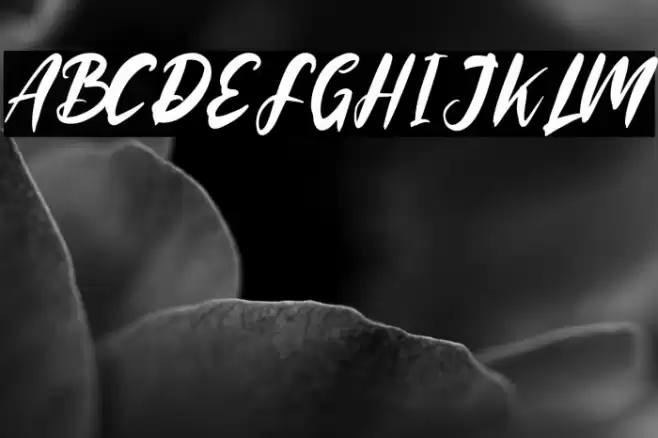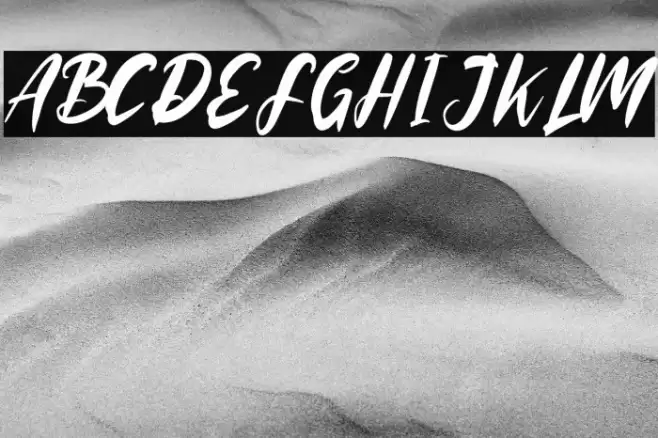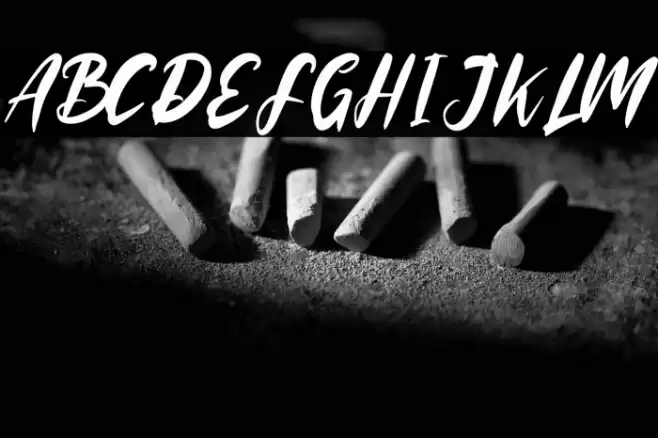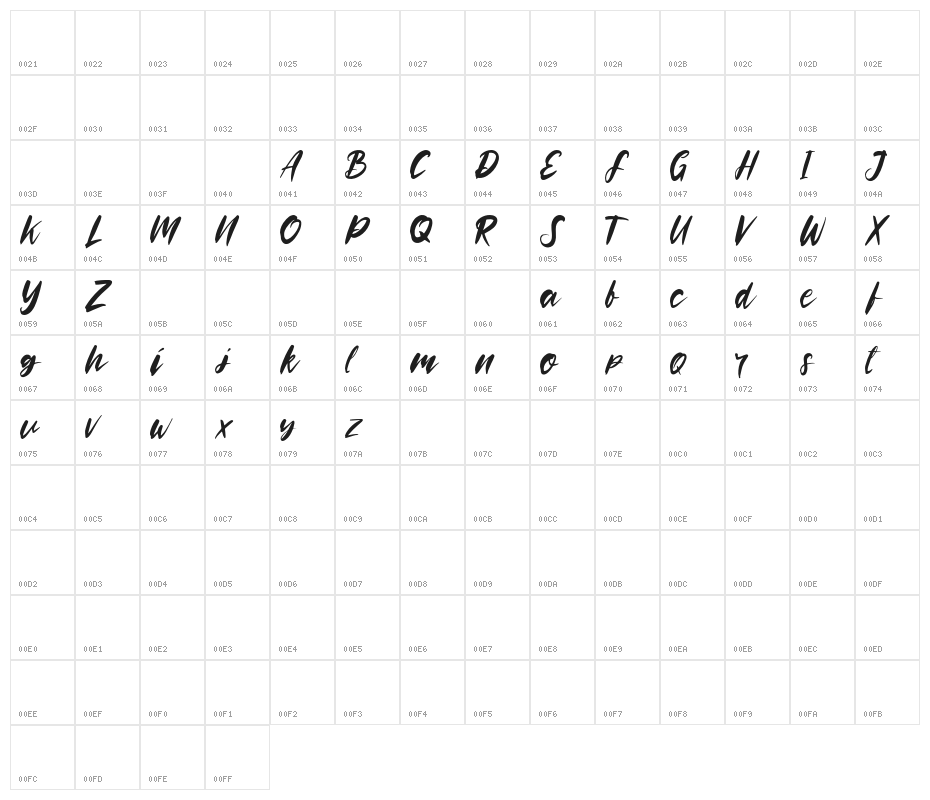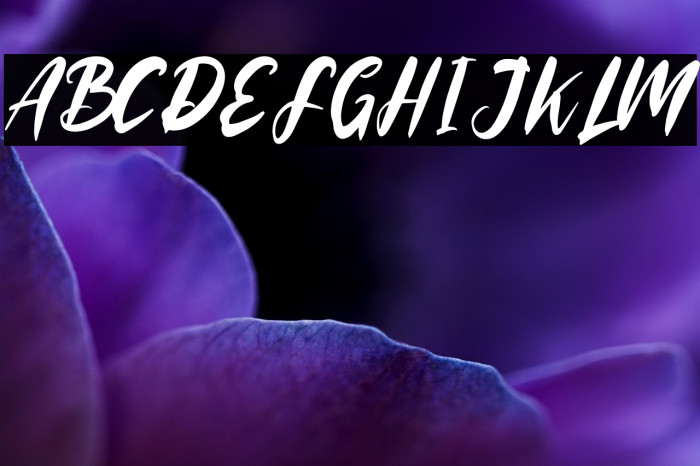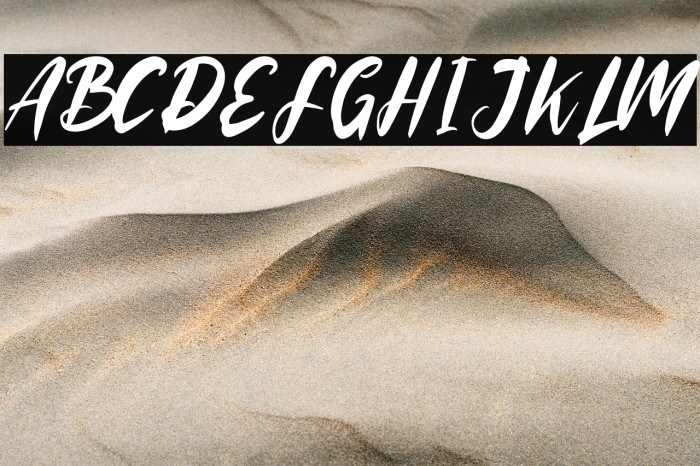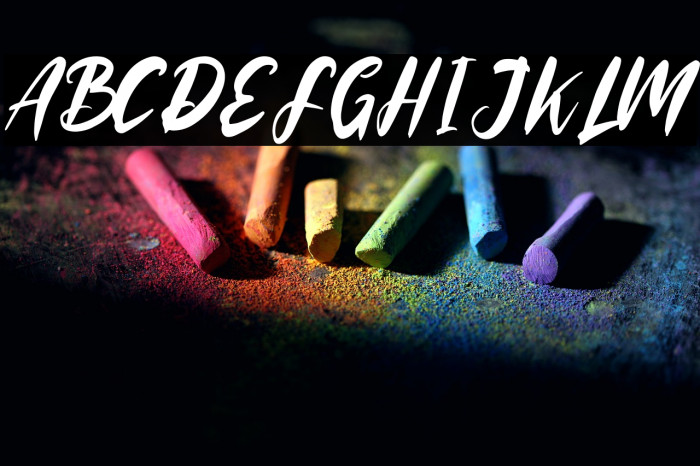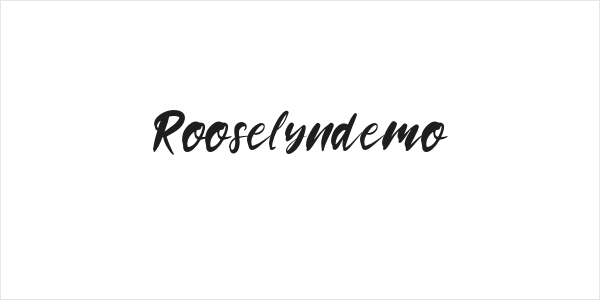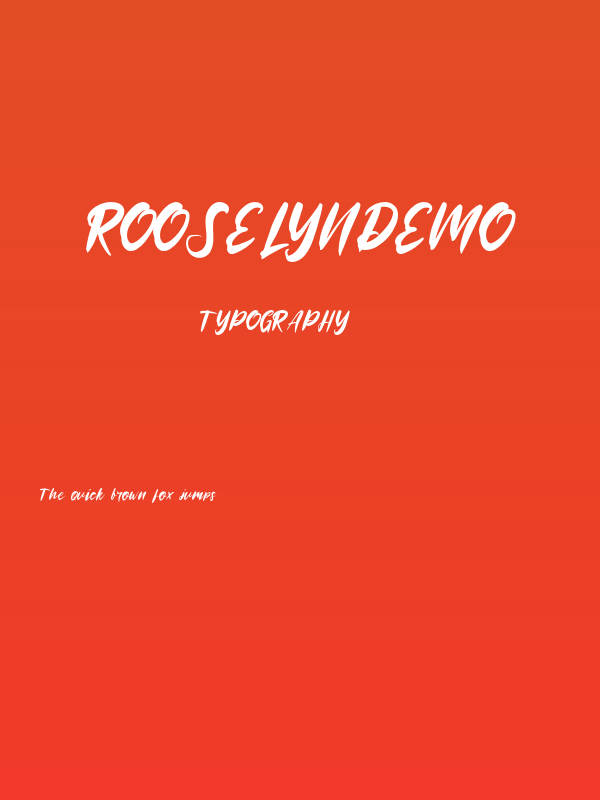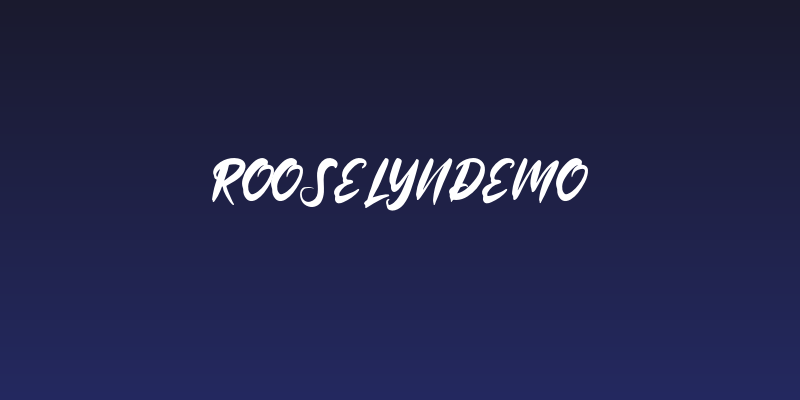
Rooselyndemo Font
Rooselyndemo Description
This font features a bold, expressive script style with a dynamic and fluid appearance. The characters are designed with a brush-like texture, giving them an artistic and handcrafted feel. The strokes vary in thickness, adding a sense of movement and energy to the text. The uppercase letters are slightly more structured, while the lowercase letters exhibit a more freeform and casual style. This font is ideal for projects that require a personal touch or a creative flair, such as invitations, posters, and branding materials. Its unique style makes it stand out, capturing attention with its bold and lively character.
A bold, expressive script font with a brush-like texture and dynamic style from Uncategorized fonts.
- Font: Rooselyndemo
- Proposed Projects: Ideal for invitations, posters, branding materials, and creative projects.